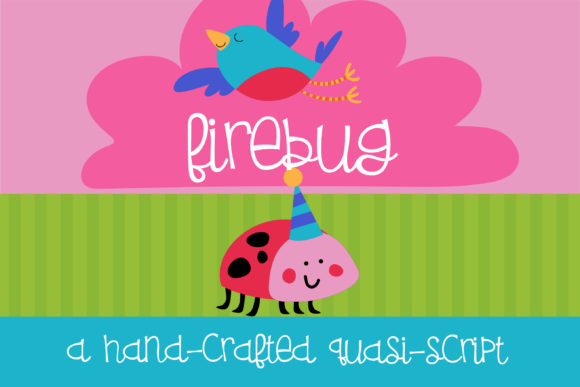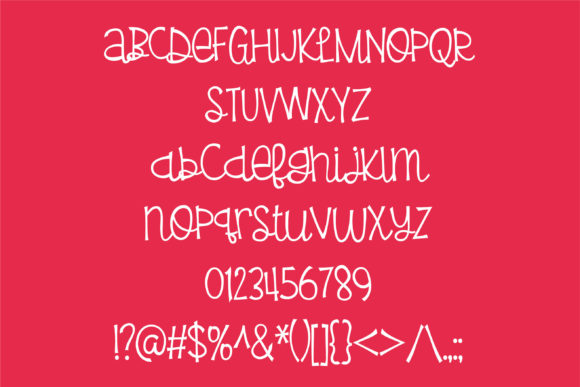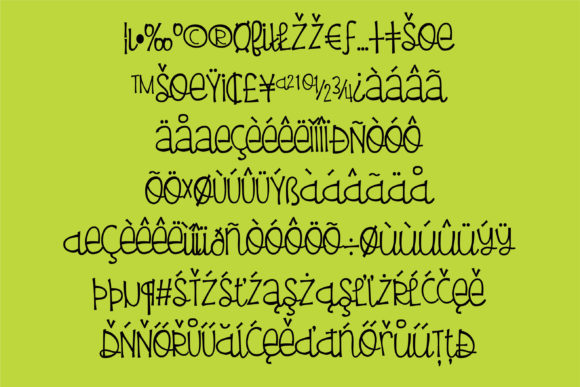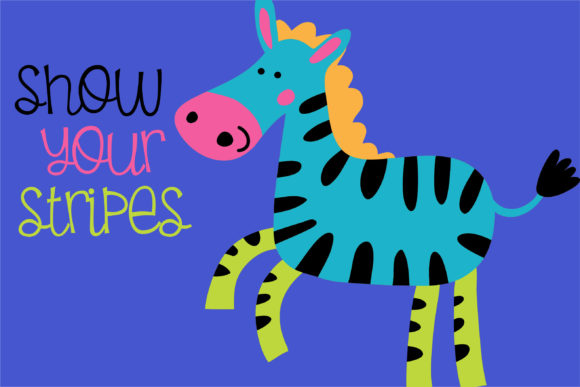
About Firebug Font
Firebug is a cute handwritten font that has a very youthful feel. It embodies playfulness and authenticity and is the perfect choice for any children activity or school project.